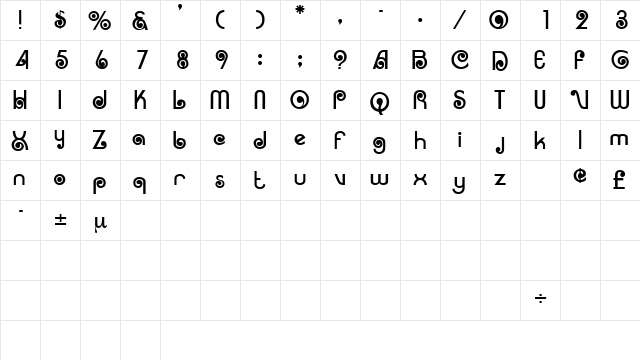
CorrugaDisplaySSK Regular Font Preview
CorrugaDisplaySSK Regular
Design Context for CorrugaDisplaySSK Typeface
CorrugaDisplaySSK is built around its visual character rather than neutral utility — its distinctive forms are designed to make an impression at display sizes.
Font Pairing: Pair with a clean neutral sans-serif for body copy to let CorrugaDisplaySSK's character lead without overwhelming the composition.
Pro Tip: Treat CorrugaDisplaySSK as the centrepiece of your typographic hierarchy. One strong heading set in a decorative face can carry an entire layout.